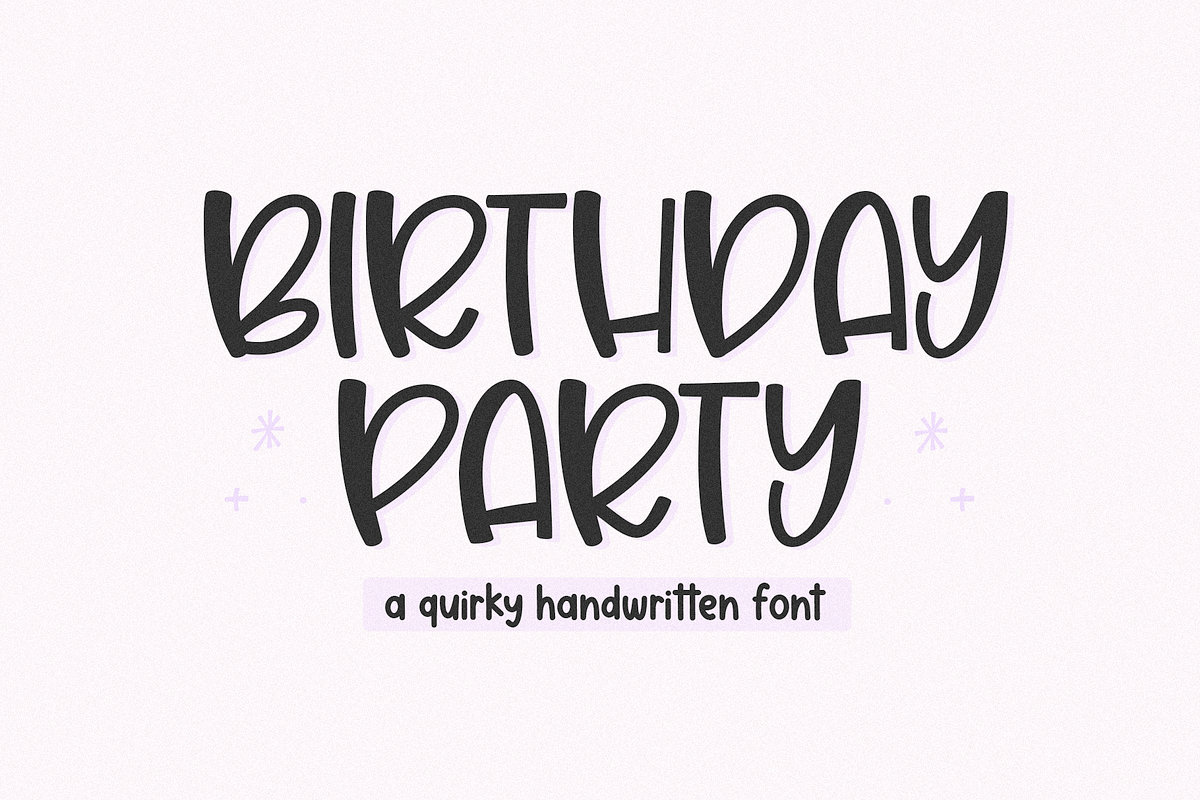
Birthday Party | Handwritten Font Free Download is a playful and joyful handwritten typeface, designed to bring a fun, festive vibe to your designs. With its bouncy letterforms and casual, cheerful style, this font is perfect for birthday invitations, party decorations, greeting cards, event posters, and any design that needs a touch of celebration.
The font's whimsical, hand-drawn look makes it ideal for projects targeting a youthful audience or anything that calls for a lively, personal touch. Whether you're crafting a birthday card or promoting an event, Birthday Party adds an extra layer of excitement to your typography.